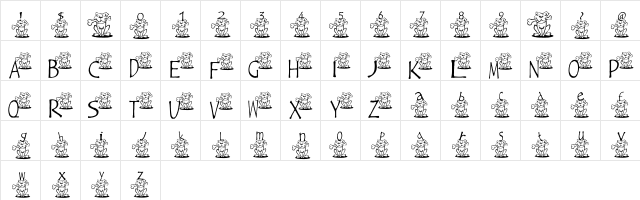
AEZ ruff, ruff Font Preview
AEZ ruff, ruff AEZ ruff, ruff
AEZ ruff, ruff Font Details
| Style | AEZ ruff, ruff |
| Designer | Adult Ramblings-Anastacia E. Zittel |
Design Context for AEZ ruff, ruff Typeface
AEZ ruff, ruff is a composed and adaptable typeface that performs quietly and consistently across a wide range of design contexts.